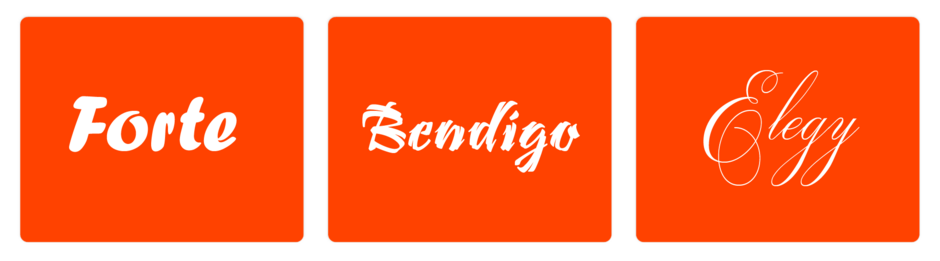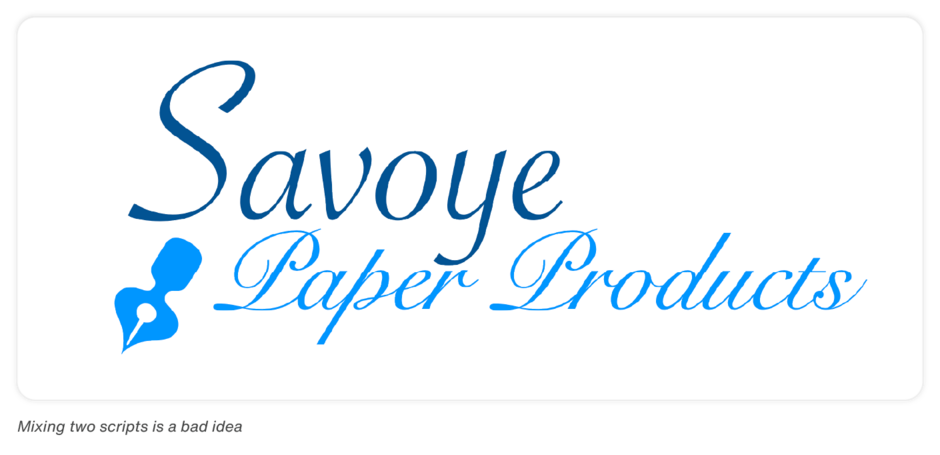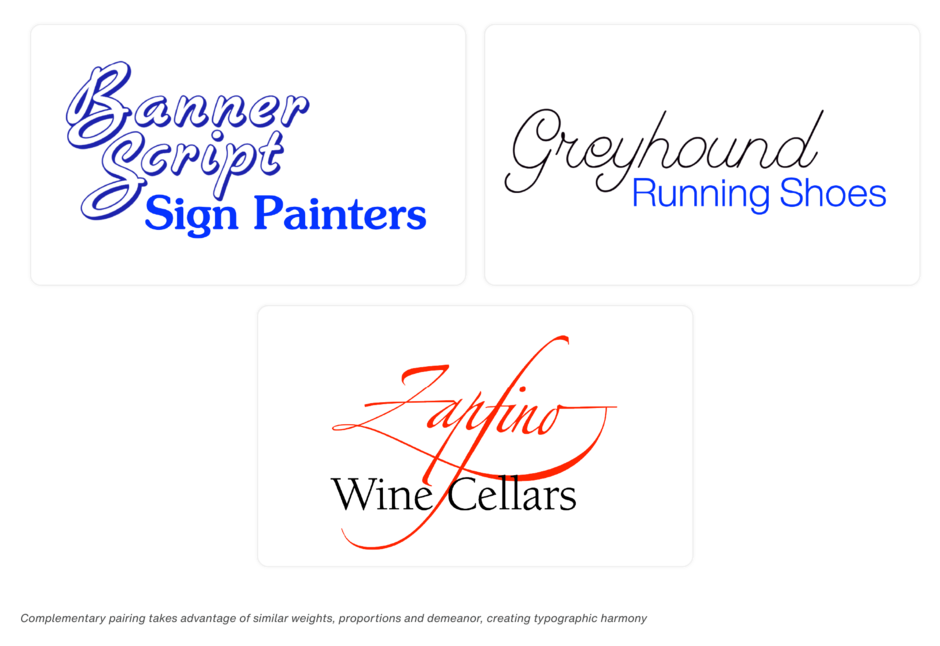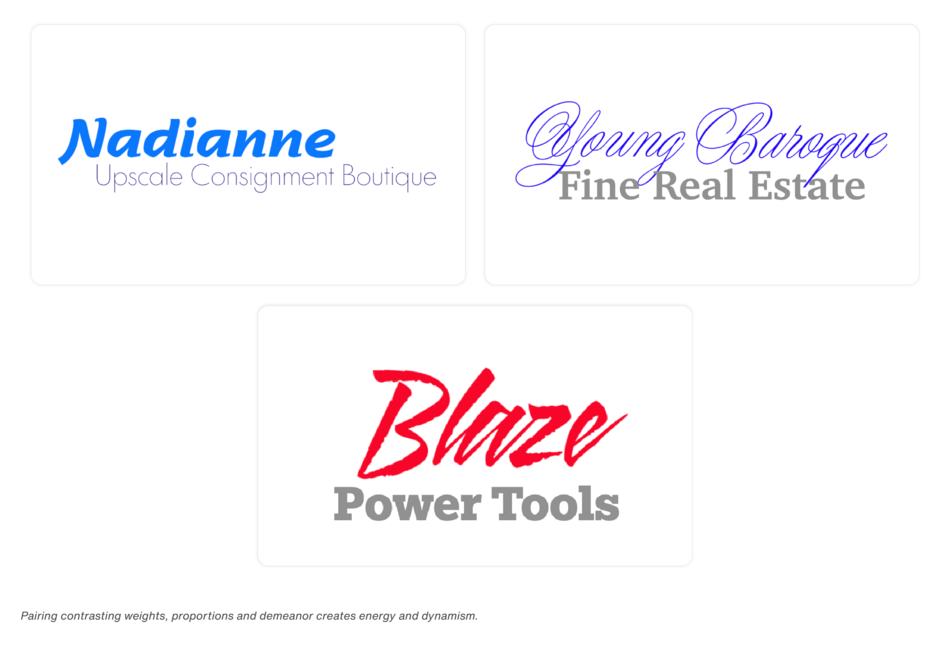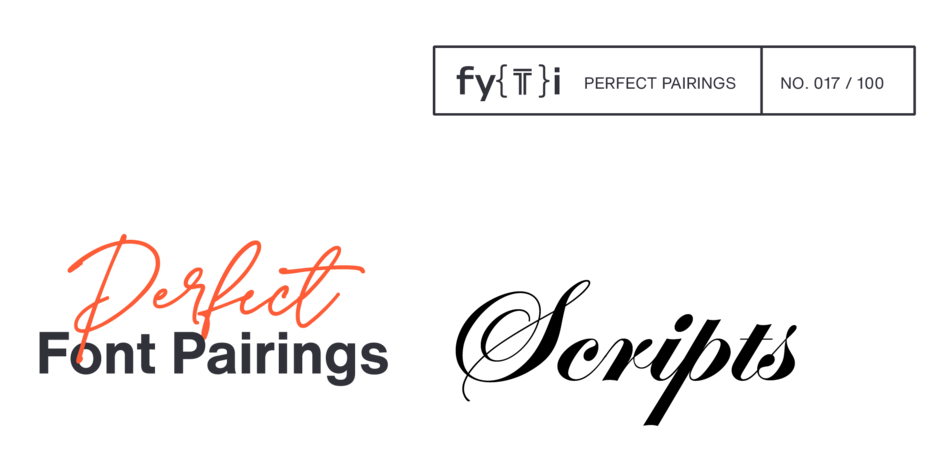
Scripts Perfect Font Pairings
Script typefaces are emotional, lyrical, and even passionate communicators. They elevate the written word with a unique soul and heart. Copy set in script exemplifies something greater than the sum of its parts.
Among all letter styles, scripts are perhaps the most expressive and versatile typographic tools. The bold, rounded strength of a typeface like Forte™ conveys a very different personality than the passionate Bendigo™, while both are distinctly different from the refined elegance of Elegy™.
Caveats for pairing scripts
First, scripts are harder to read than serif or sans serif typefaces. We are not as familiar with their character shapes as we are to those in more traditional typeface designs. This slows down the reading process – and can affect document comprehension and information retention. Studies have also shown that blocks of script copy are not inviting to the reader.
While scripts stand out, they also tend to create a busy visual texture that is subtly off-putting to readers. A few words set in a script can make for an engaging and powerful headline – and they can be excellent choices for creating wordmarks. Just don’t rely on them for textual copy.
What to look for in fonts that pair well with script typefaces
- Avoid pairing two script fonts together. Script typefaces carry strong, distinct personalities that often compete rather than complement. Mixing two scripts in the same design tends to create visual confusion rather than harmony.
- Pair script fonts with simple, clean typefaces.
- Choose sans-serif or serif fonts with minimal decoration to balance the decorative nature of scripts.
- Complement or contrast the script’s demeanor with it companion design. For example, pair a formal, elegant script with a classic serif like Walbaum or a playful, casual script with a friendly sans-serif like Gotham® Rounded.
There are hundreds of script fonts and a thousands of excellent fonts to pair with them. Pairing guidelines are pretty straightforward. Just remember that scripts are a strong spice, so fold them into your projects with care.